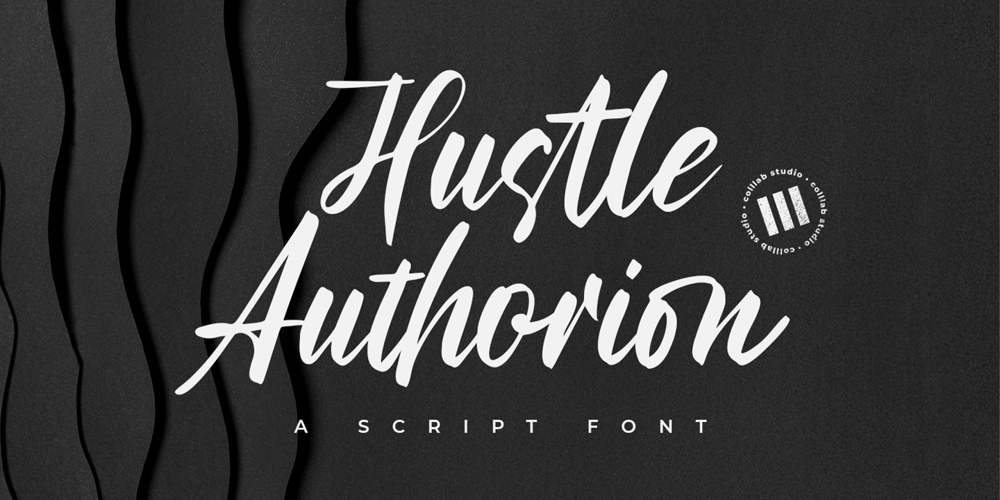
Hustle Authorion Font Family was designed by Awaluddin Syarif and published by Colllab Studio. Hustle Authorion contains 1 styles and family package options. Presenting Hustle Authorion! An Authentic Script Font. This font made with the perfect combination of each character. You can combine with Extra to get a unique combination. It looks original and can be used for all your project needs. Each glyph has its own uniqueness and when meeting with others will provide dynamic and pleasing proximity. This font can be used at any time and in any project. You can see in the presentation picture above, Hustle Authorion looks authentic on design projects.So, Hustle Authorion can’t wait to give its touch to all your design projects such as quotes, poster design, personal branding, promotional materials, website, logotype, product packaging, etc.WHAT’S INCLUDED?Hustle Authorion • It comes with uppercase, lowercase, ligatures, numeral, punctuation, symbols, and Standard Latin Multilingual Support (Afrikaans, Albanian, Catalan, Danish, Dutch, English, French, German, Icelandic, Indonesian, Italian, Malay, Norwegian, Portuguese, Spanisch, Swedish, Zulu, and More). A Million ThanksColllab Studio